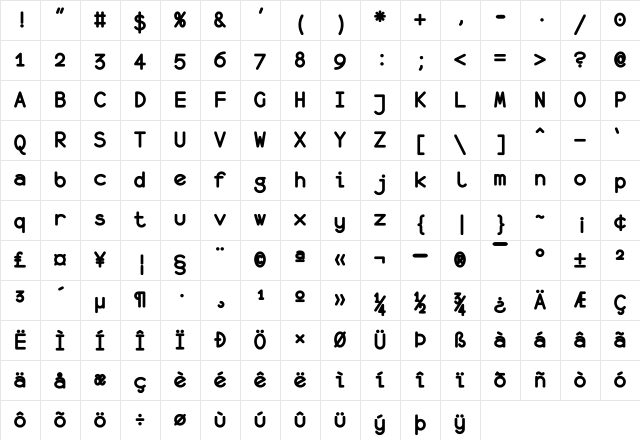
monofur for Powerline bold Free Font
monofur for Powerline bold
Style: bold
monofur for Powerline Family
monofur for Powerline bold
Design Context for monofur for Powerline
monofur for Powerline brings high-energy athletic personality to the page - its confident, muscular forms are built for impact. Its bold stroke weight gives it real presence on the page.
Pro Tip: Use monofur for Powerline in all-caps headlines where its athletic energy can fully express itself. Pair with a solid, simple sans for supporting text.